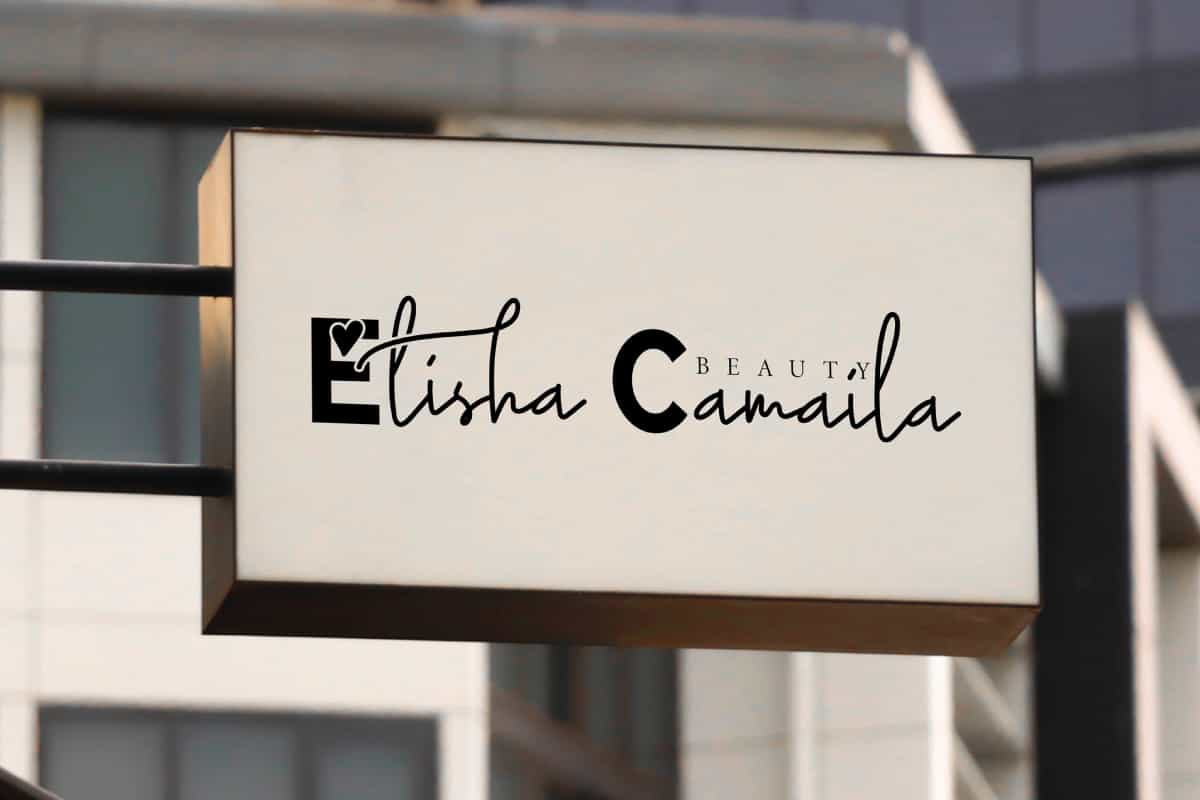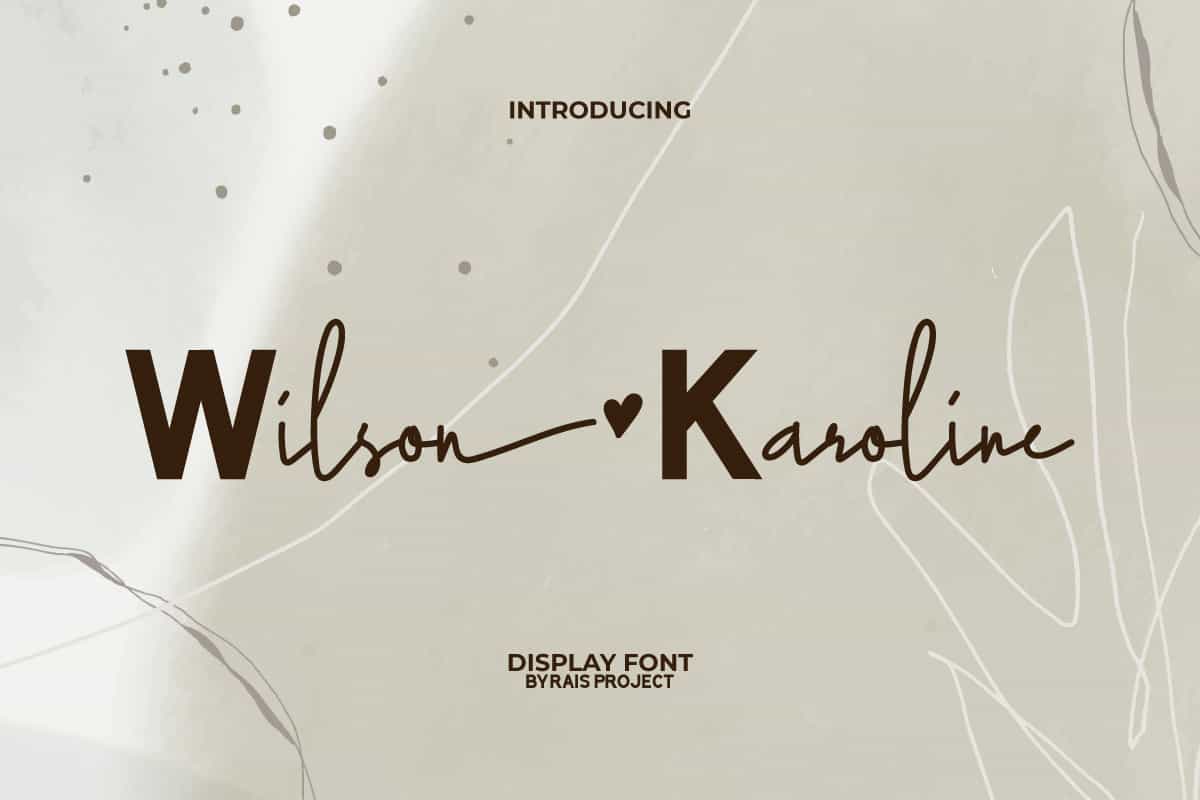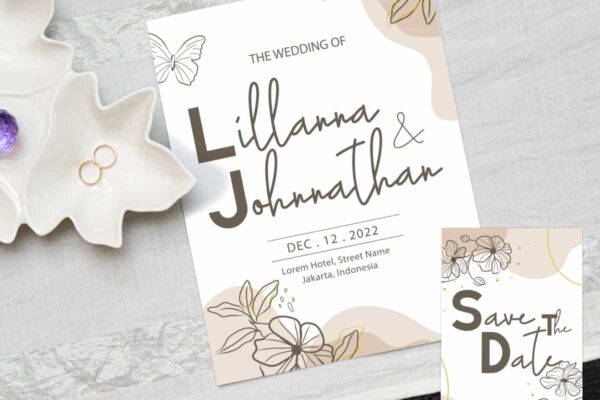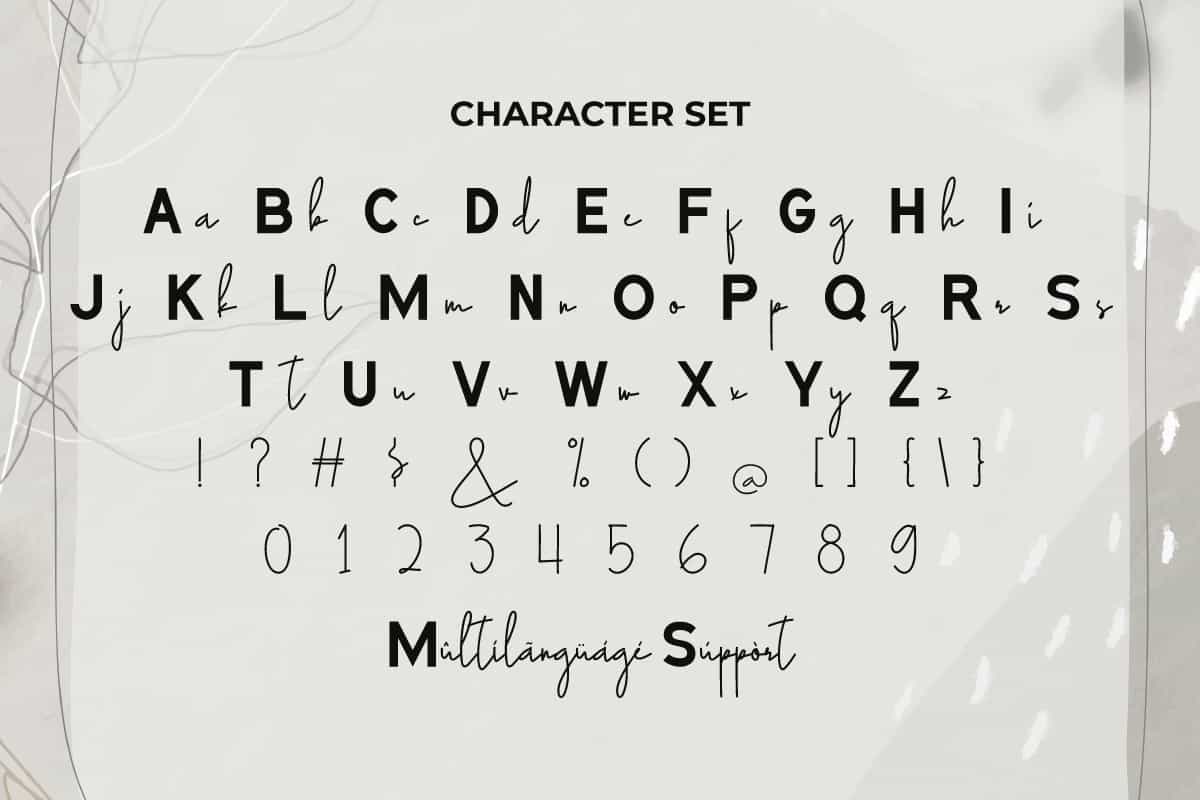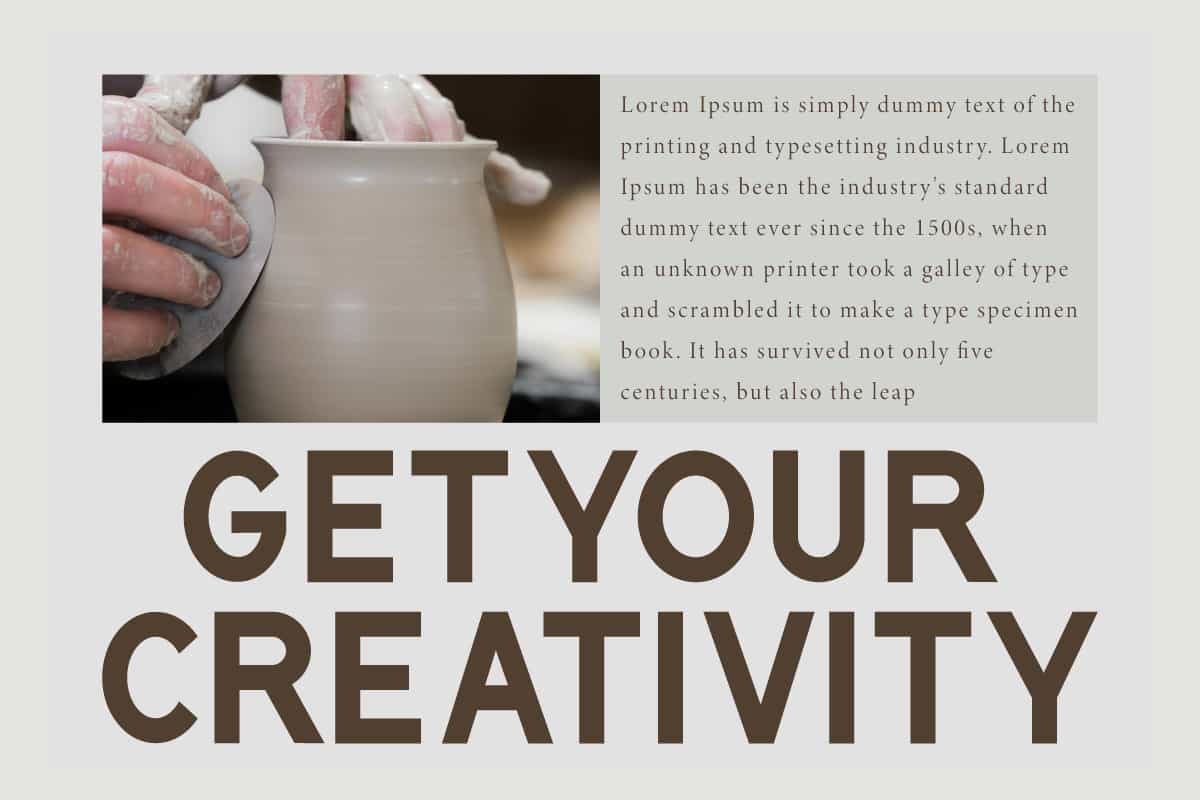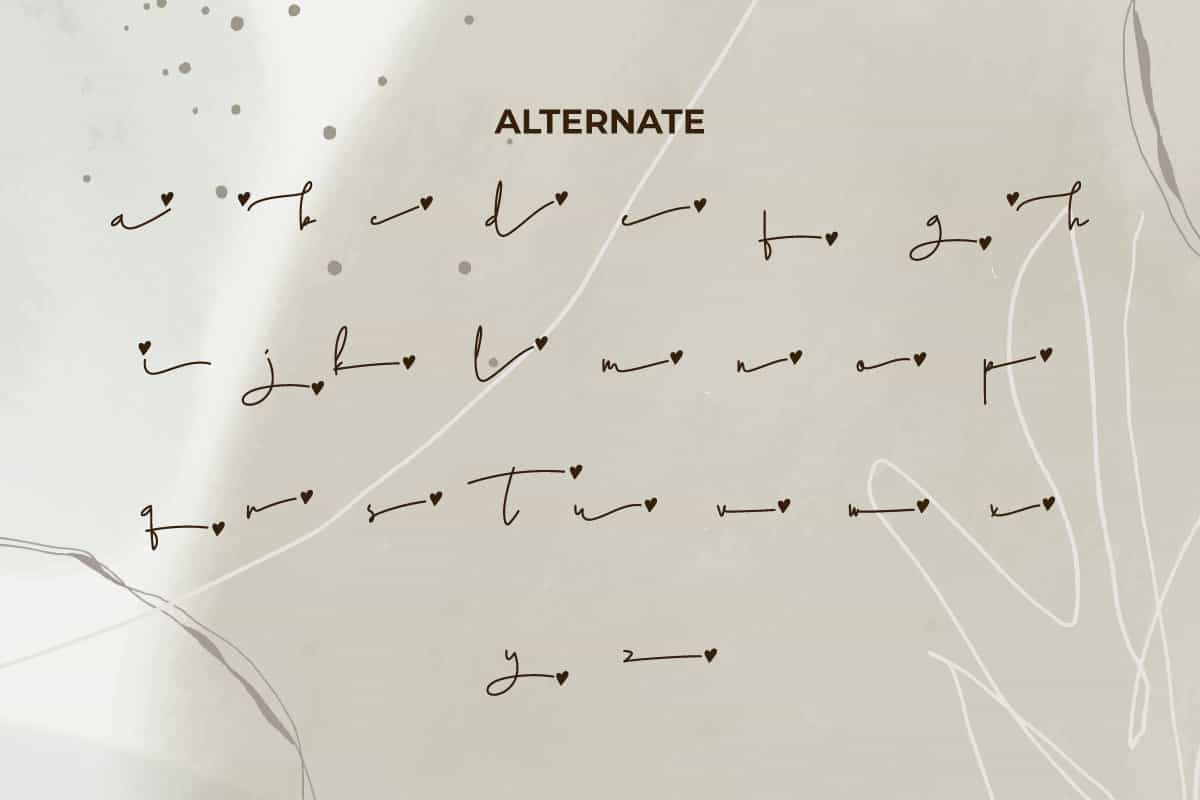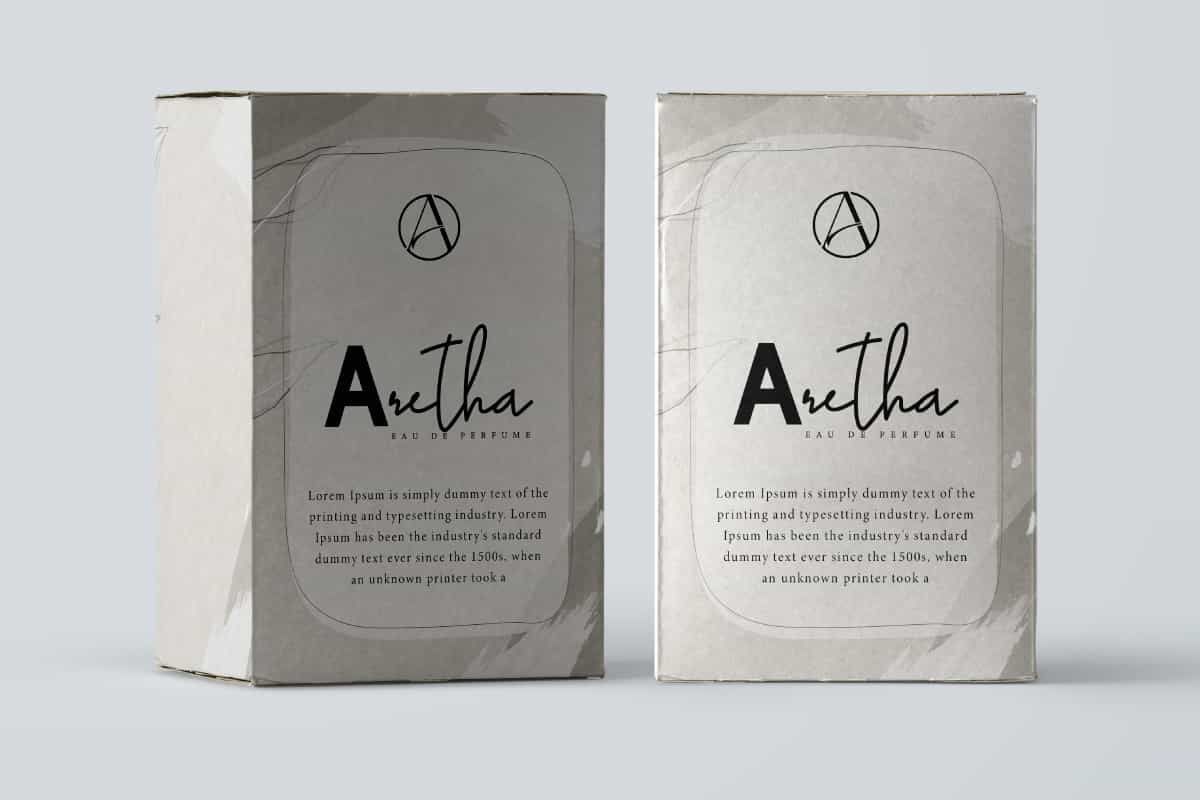
Wilson Karoline Font
Wilson Karoline Font is a font duo font combination of two different types that complement each other beautifully!
Wilson Karoline Font is a unique unusual double styles, a font duo font combination of two different and aesthetic font because it has two different types. This font has a combination of bold sans serif and handwritten styles that make it look beautiful in every concept. It will be good for any designs, such as invitation, poster, signage, brand image, cover, custom design, greeting card, label, product packaging, quotes, web, and more!
Introducing Wilson Karoline Font – a stylish and elegant typeface designed to bring sophistication and personality to your creative projects. With its graceful curves, refined strokes, and timeless design, Wilson Karoline is perfect for those seeking a modern yet classy font that elevates every detail. Ideal for wedding invitations, branding, fashion editorials, social media graphics, and product packaging, this font will make your designs unforgettable.
Wilson Karoline combines artistic elegance with versatile functionality, making it a go-to choice for designers, business owners, and creatives. Its beautifully balanced letterforms create a luxurious feel that’s perfect for high-end branding, boutique logos, and editorial layouts. Whether you’re designing stationery, promotional materials, or digital content, this font’s charm adds an instant touch of sophistication.
In today’s visually competitive market, typography is key to building a strong brand identity. Wilson Karoline Font helps you communicate elegance and creativity with ease. Its versatility ensures your designs are both stylish and impactful, making it the perfect font to add to your professional design toolkit.
Wilson Karoline Font includes a full set of Uppercase and Lowercase Letters with mostly ALL CAPS forms, Numerals, Punctuation, Symbol, and Alternate characters. This modern font will be suitable for various industries, such as event or wedding organizer, accessories, advertisement, event, fashion, florist, photography, printing, publishing, etc.